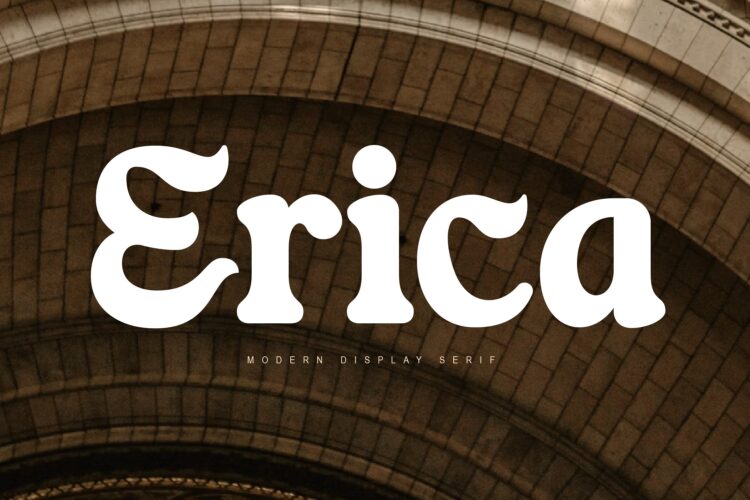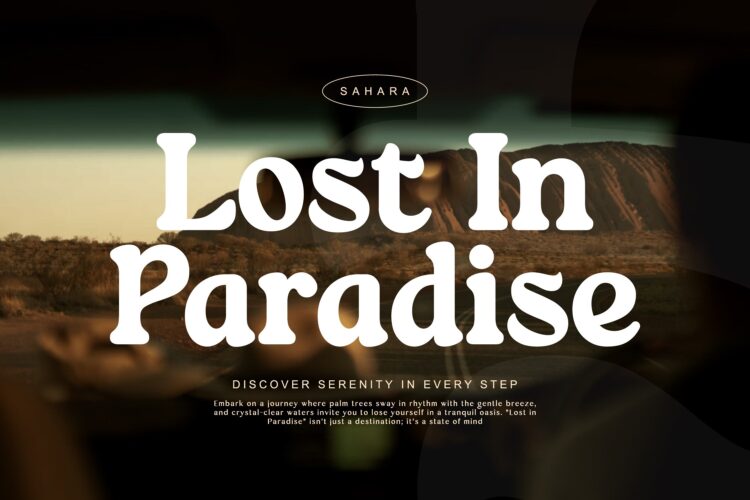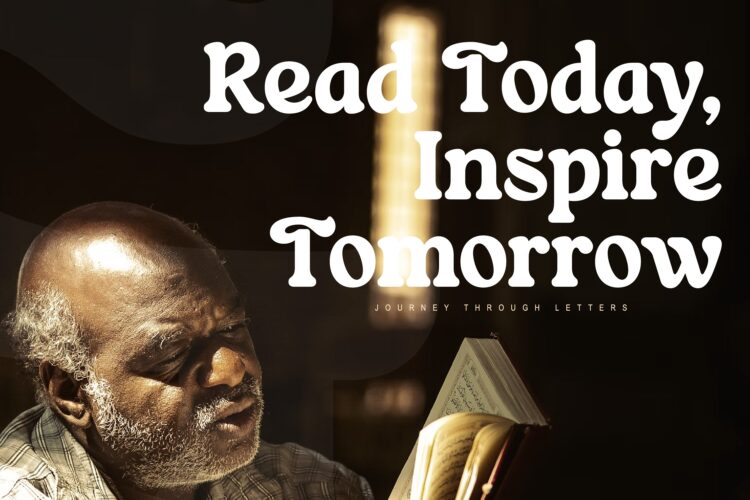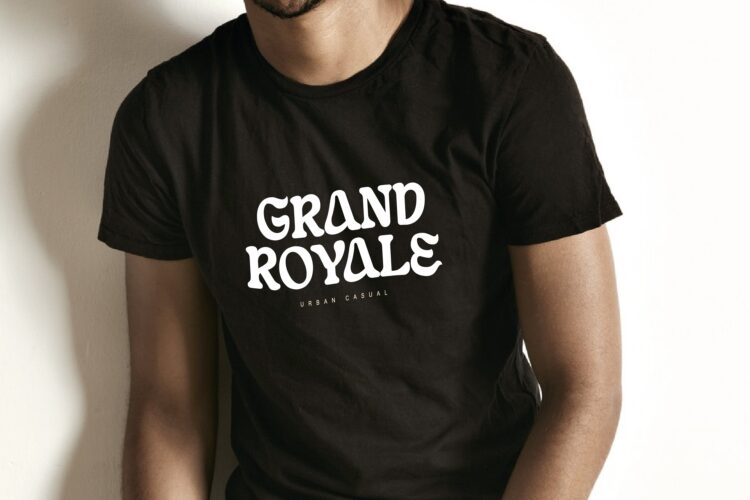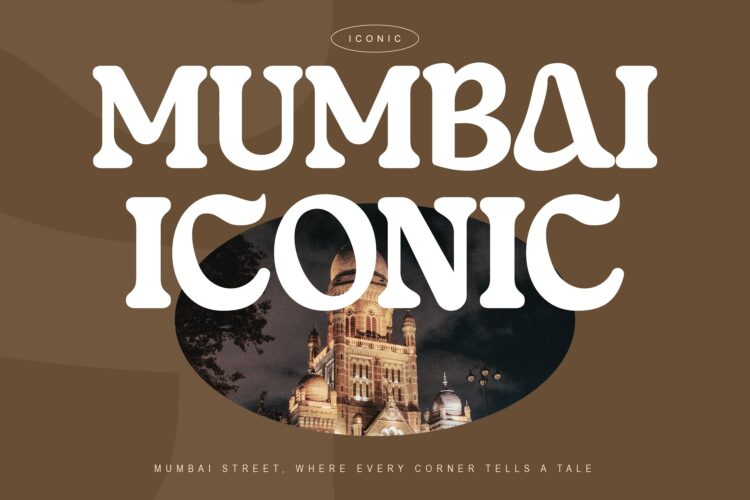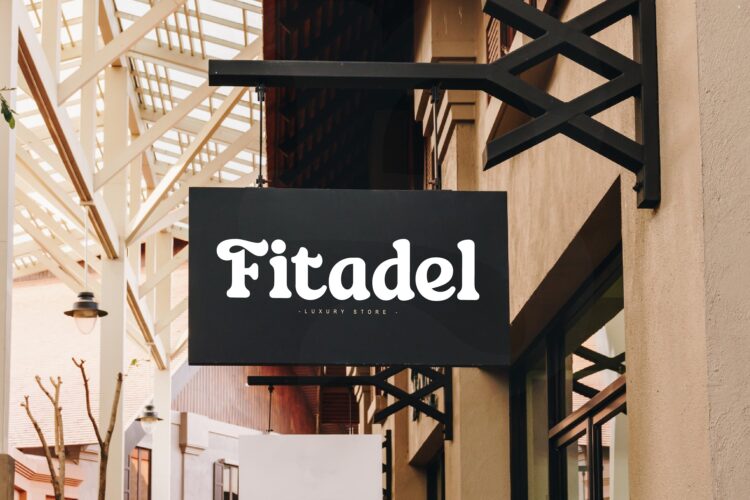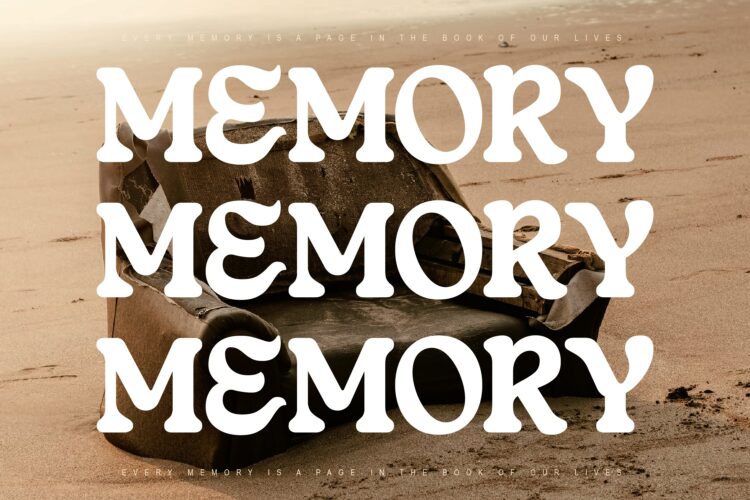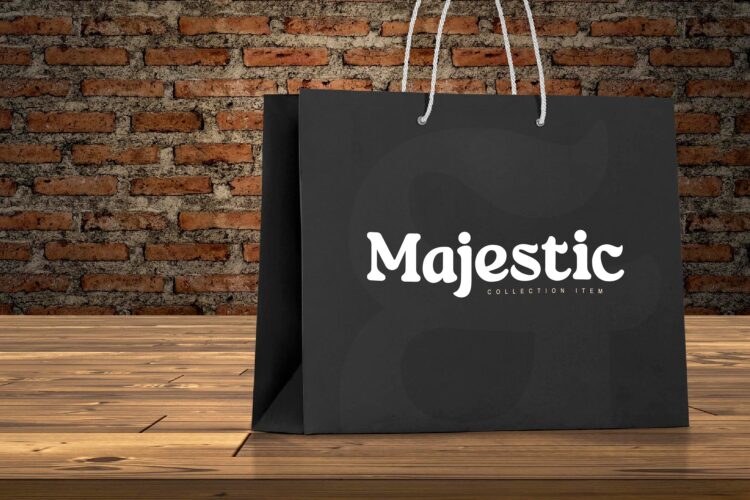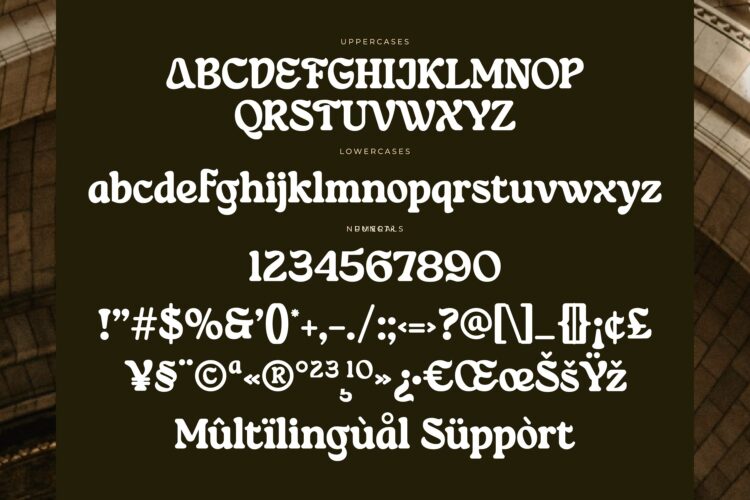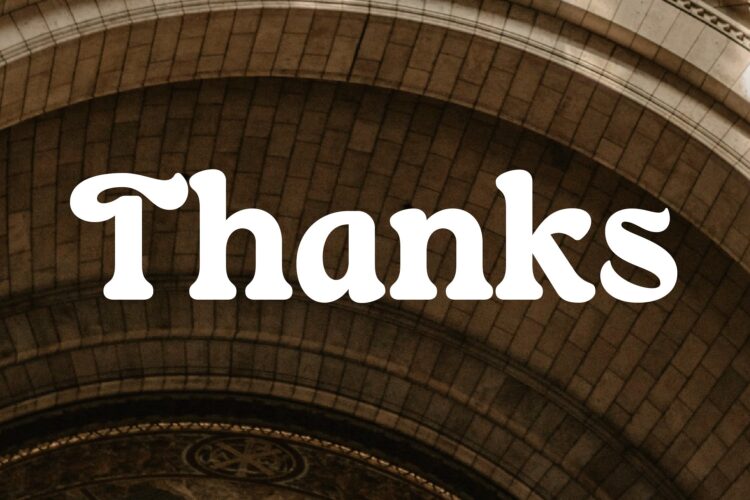
modern display serif font
Erica
Erica Font is a unique, versatile display font with a unique, elegant, and modern style. It is a display font perfect for branding projects, logos, social media posts, product packaging, labels, etc.